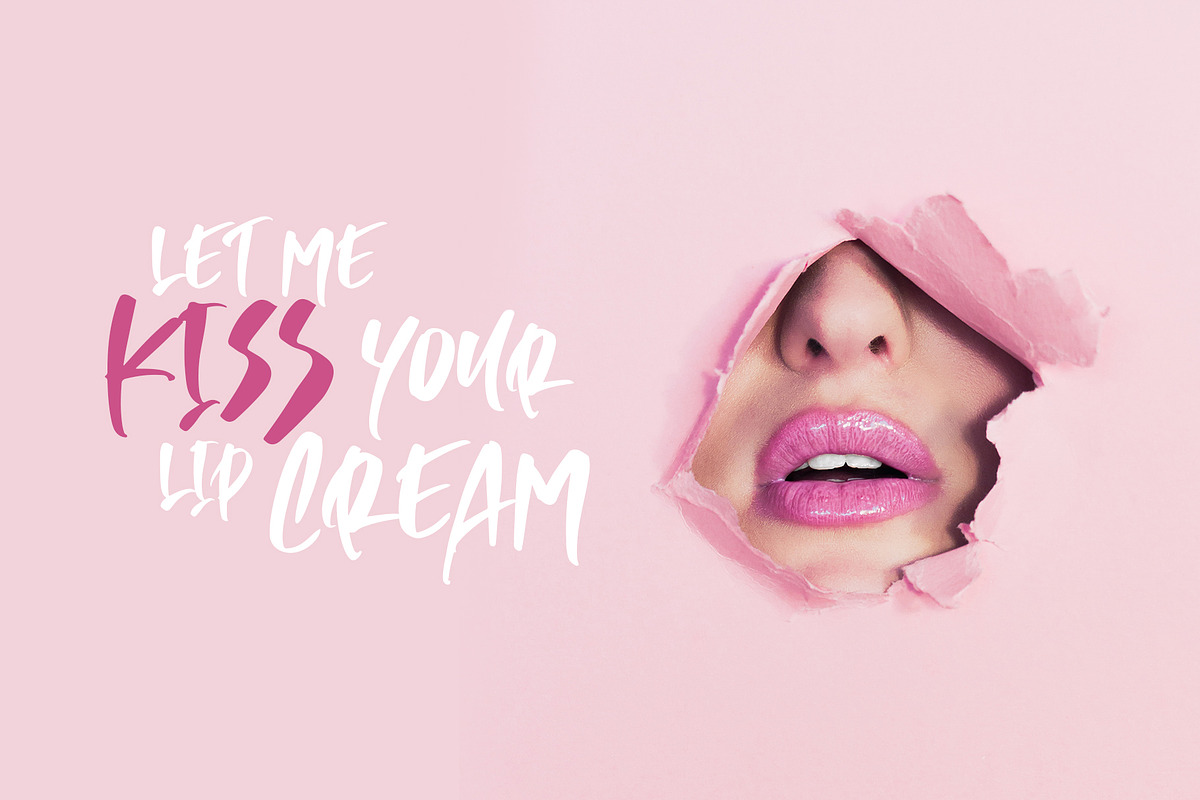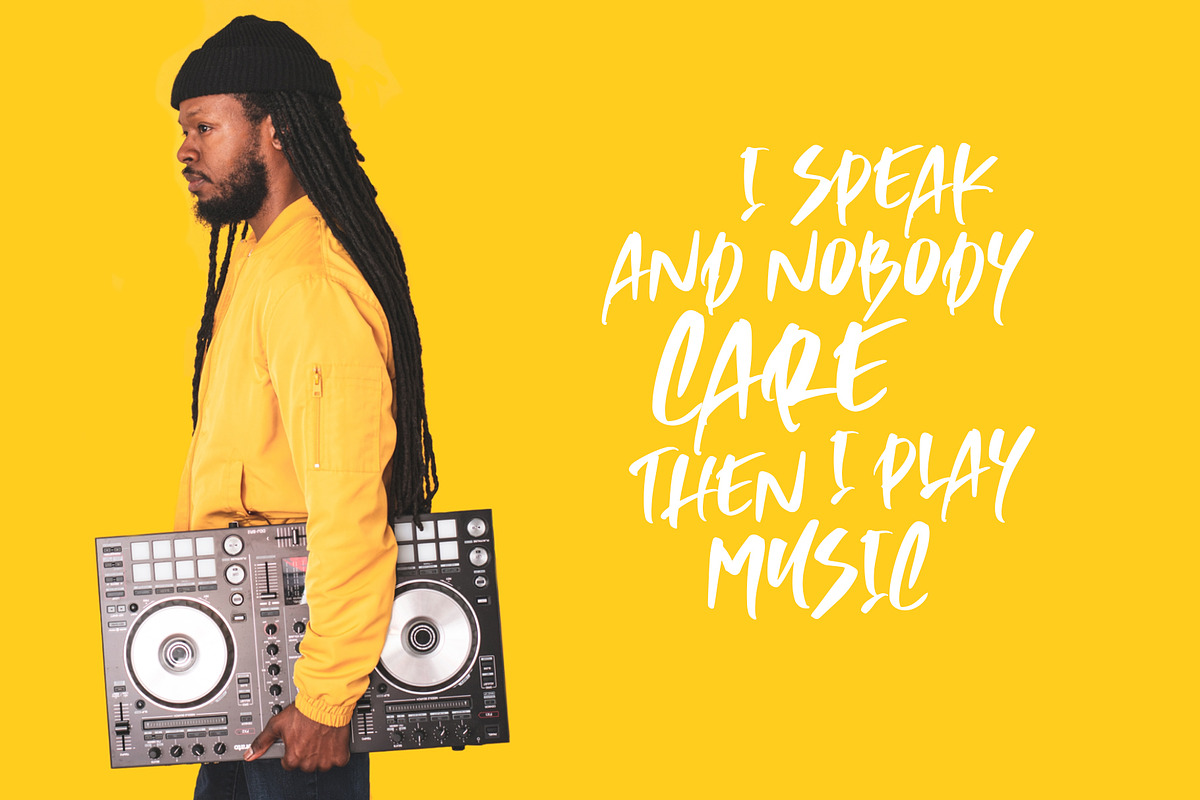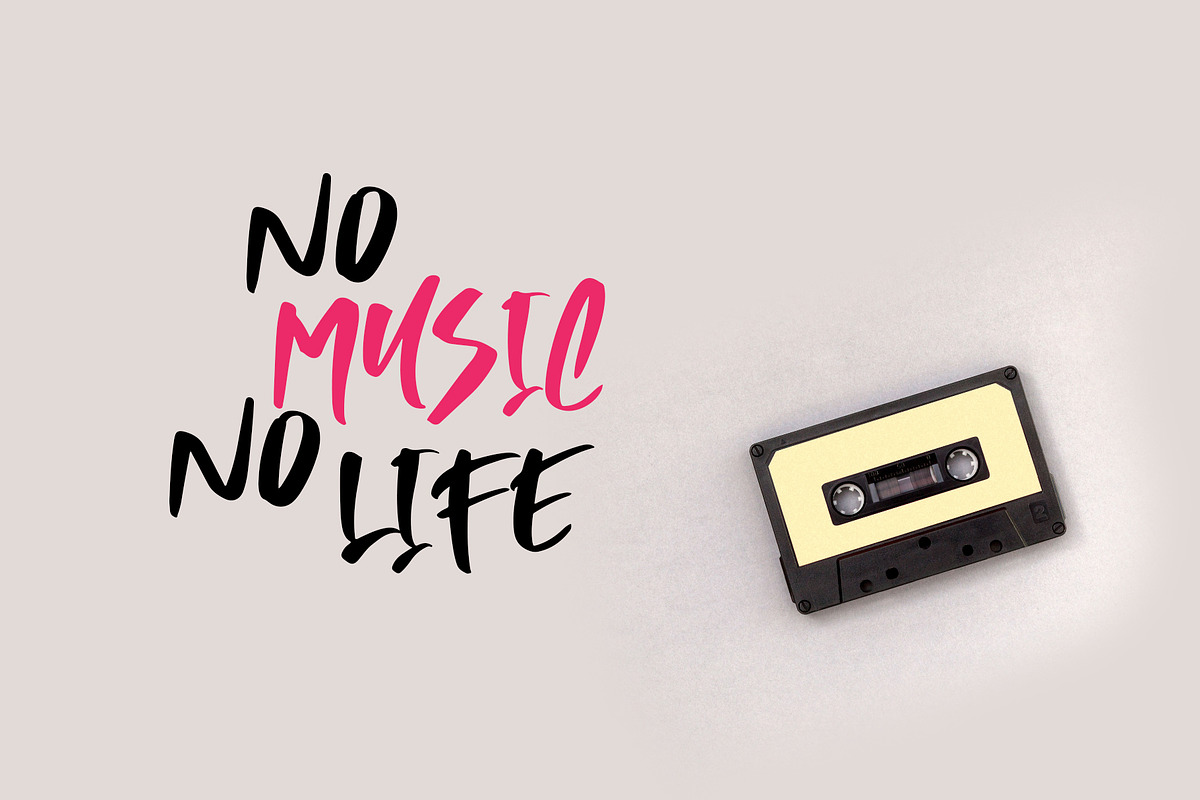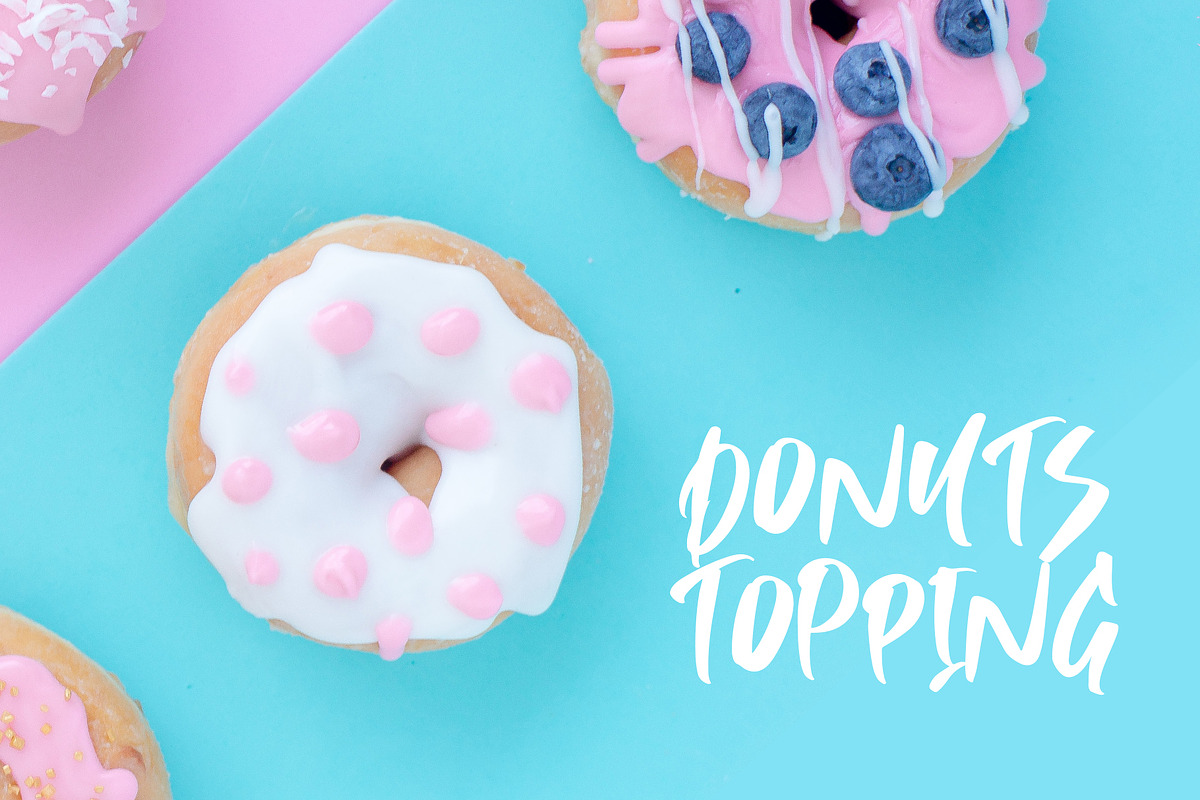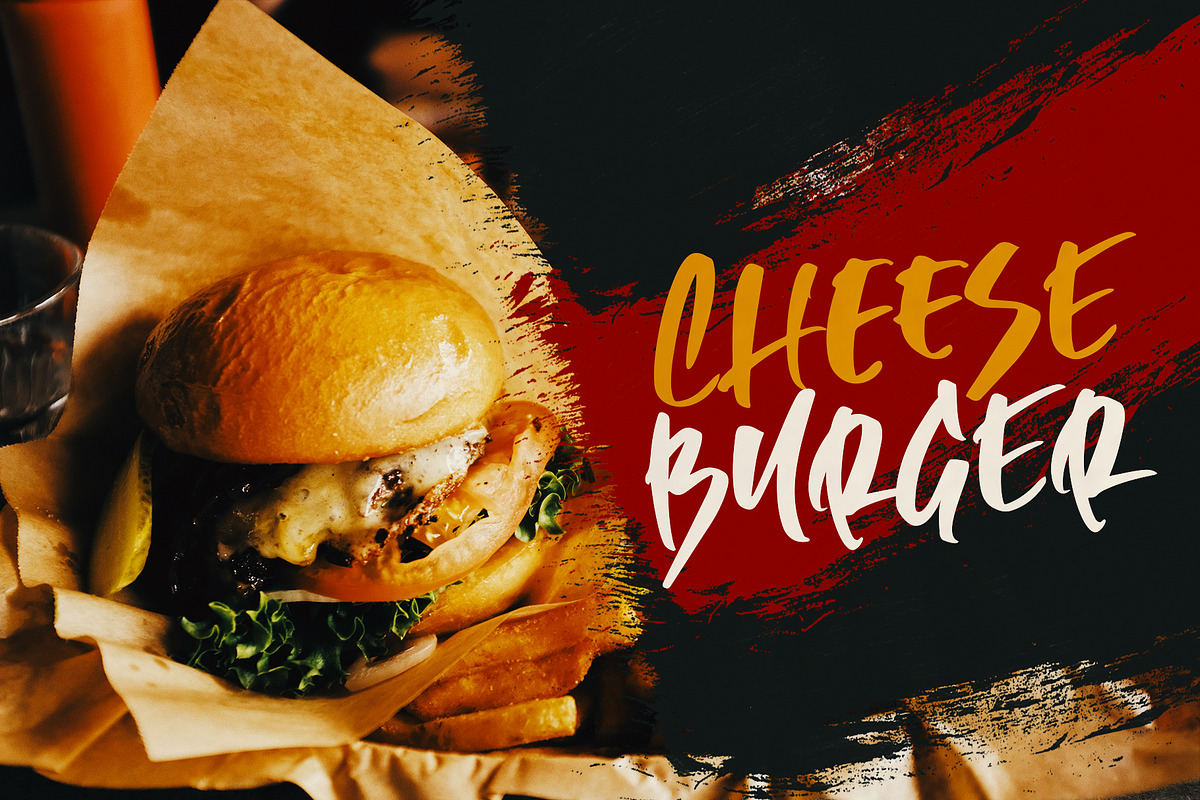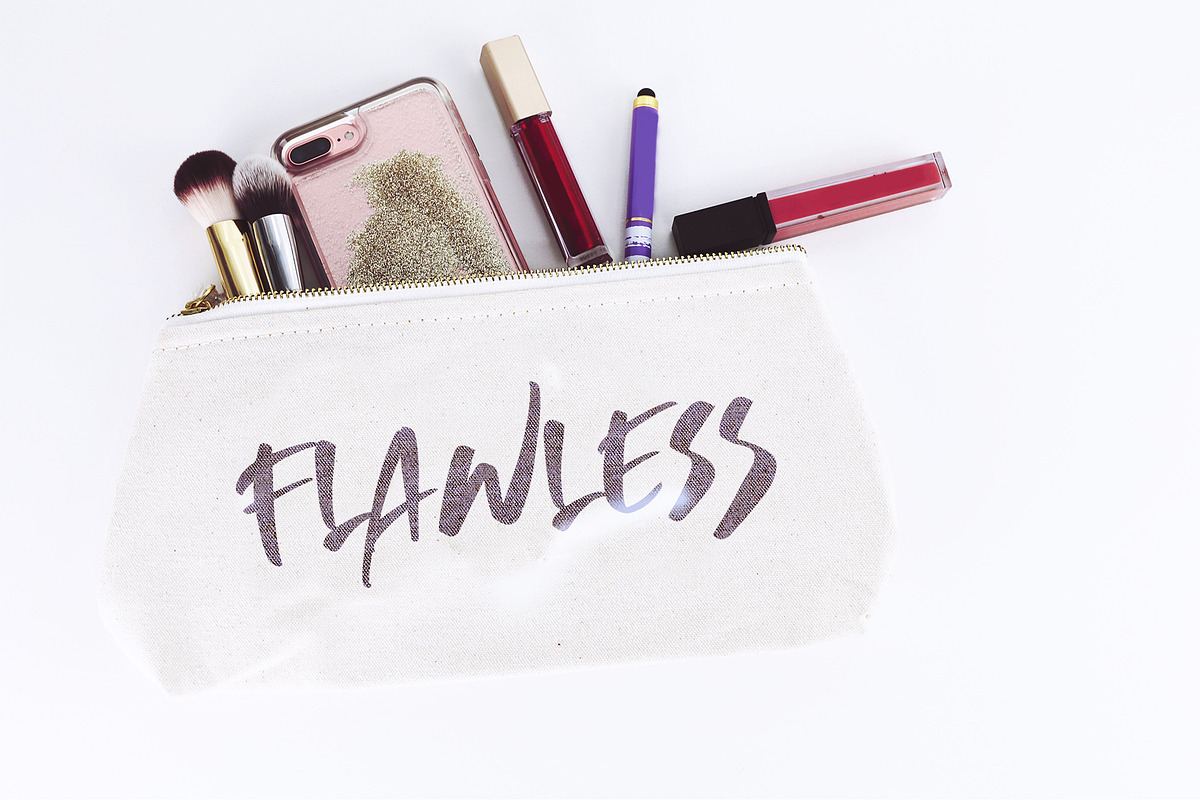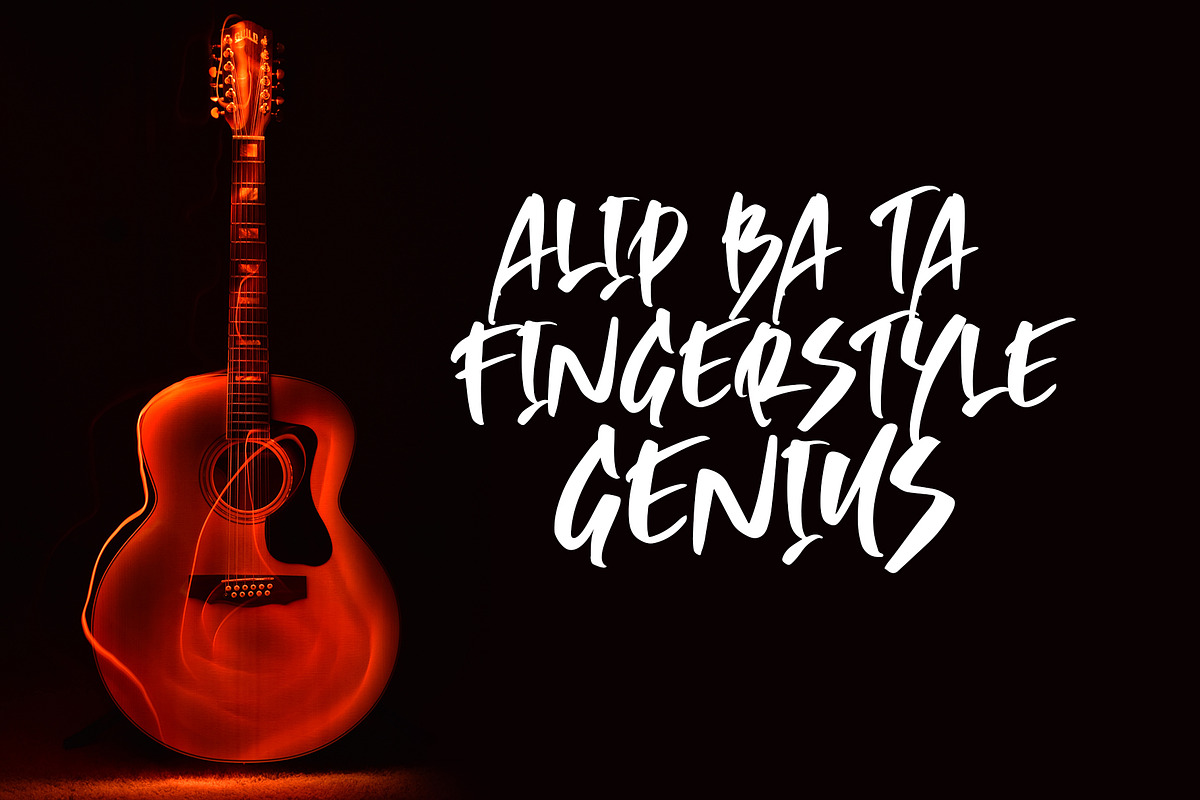
Musician Crush - Vibrant Font
Musician Crush is a vibrant and attractive display font with urban style. This All Caps typeface is strong to stand out over your design project. You'll find natural handwriting feel, because Musician Crush packed with ligatures, also multilingual support and PUA Encoded.
- You'll find natural handwriting feel, because Musician Crush packed with ligatures, also multilingual support and PUA Encoded.